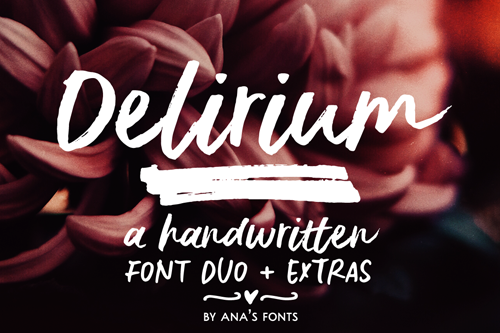
Delirium is a textured brush font duo, with: - A-Z, a-z, 0-9, accents, punctuation and symbols - Ligatures - Bonus Ornaments Try it out for free (for private use) with this sample version! For the full public/commercial version, please visit one of these links: https://www.anasfonts.com/ https://creativemarket.com/justlikethistrain?u=justlikethistrain http://www.revolge.com/shop/anas-fonts/ https://www.fontspring.com/foundry/anas-fonts https://thehungryjpeg.com/anas-fonts/ https://buyafont.com/designer/anas-fonts |